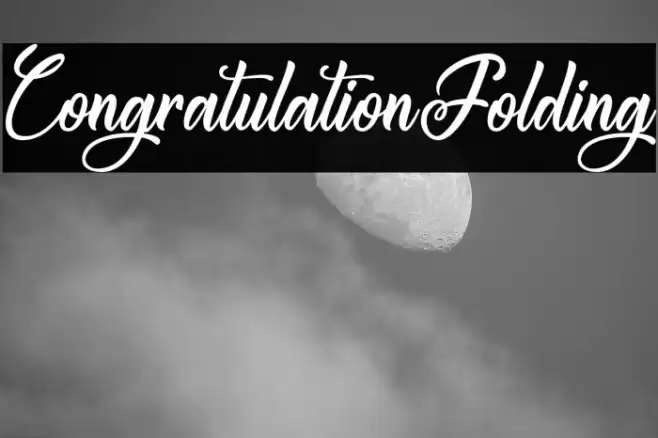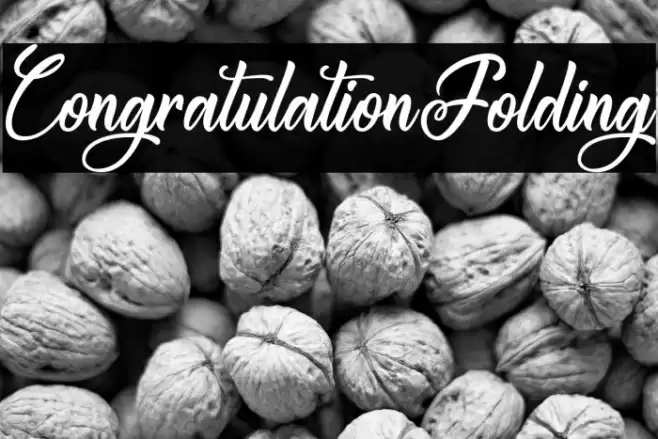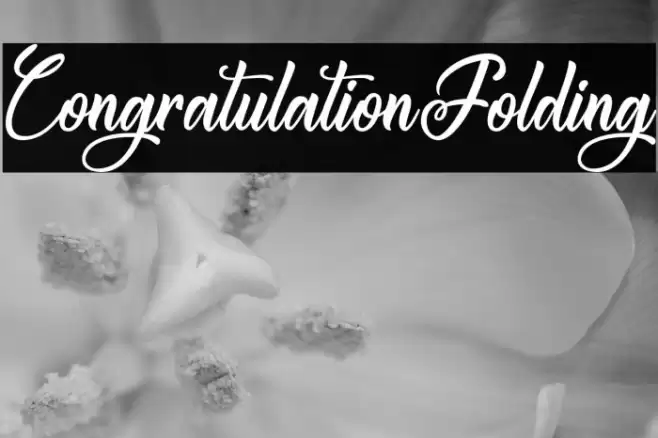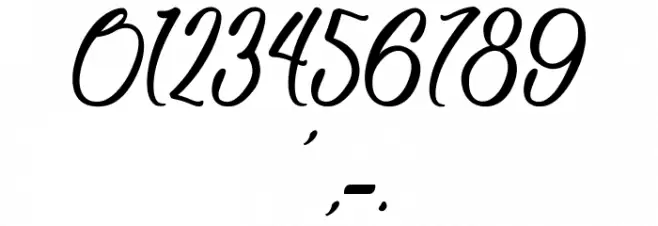
CongratulationFolding Font
CongratulationFolding Description
This font is an elegant and flowing script style, characterized by its cursive and interconnected letterforms. The uppercase letters are ornate with sweeping curves and flourishes, giving a sense of sophistication and grace. The lowercase letters maintain a consistent flow, enhancing readability while retaining a stylish appearance. Numbers and special characters are designed to match the overall aesthetic, with similar curves and embellishments. The font's design is reminiscent of traditional calligraphy, making it suitable for formal and decorative uses.
An elegant script font with flowing, interconnected letterforms and ornate details from Uncategorized fonts.
- Proposed Projects: Ideal for wedding invitations, elegant branding, greeting cards, and decorative headings.
- Use Case: Headlines, Logos, Invitations